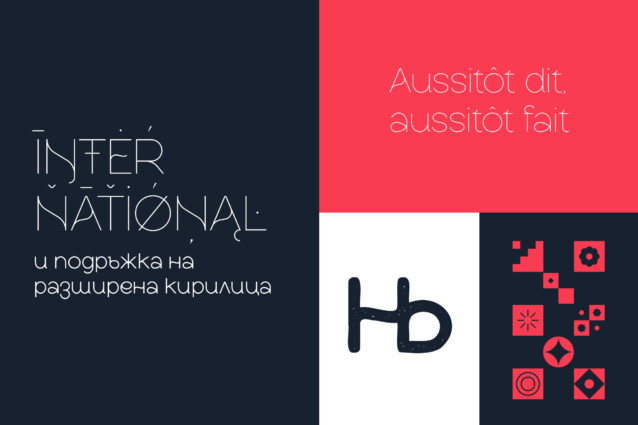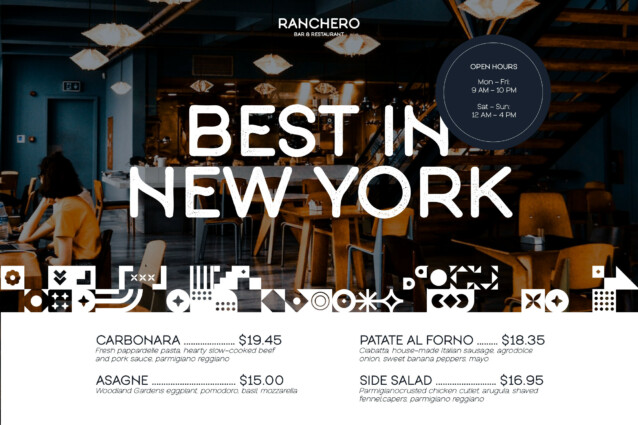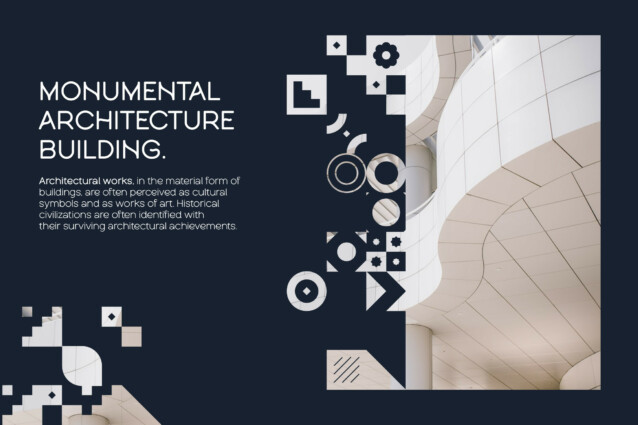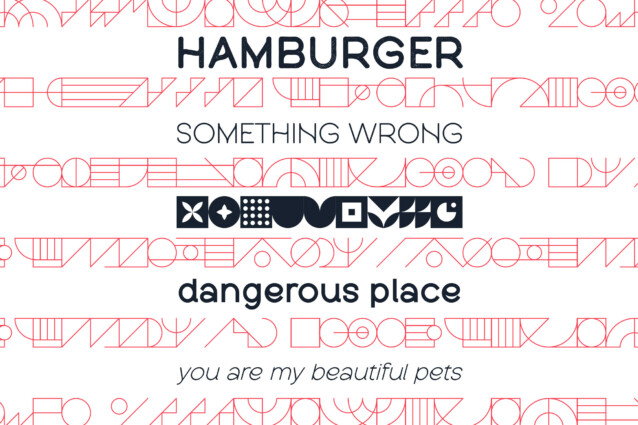
Luminova Soft Outline Font is more than just a typeface; it’s a versatile collection of 30 fonts designed to light up your creative projects. With its sleek and modern sans serif design, Luminova brings a touch of elegance and professionalism to any project you’re working on.